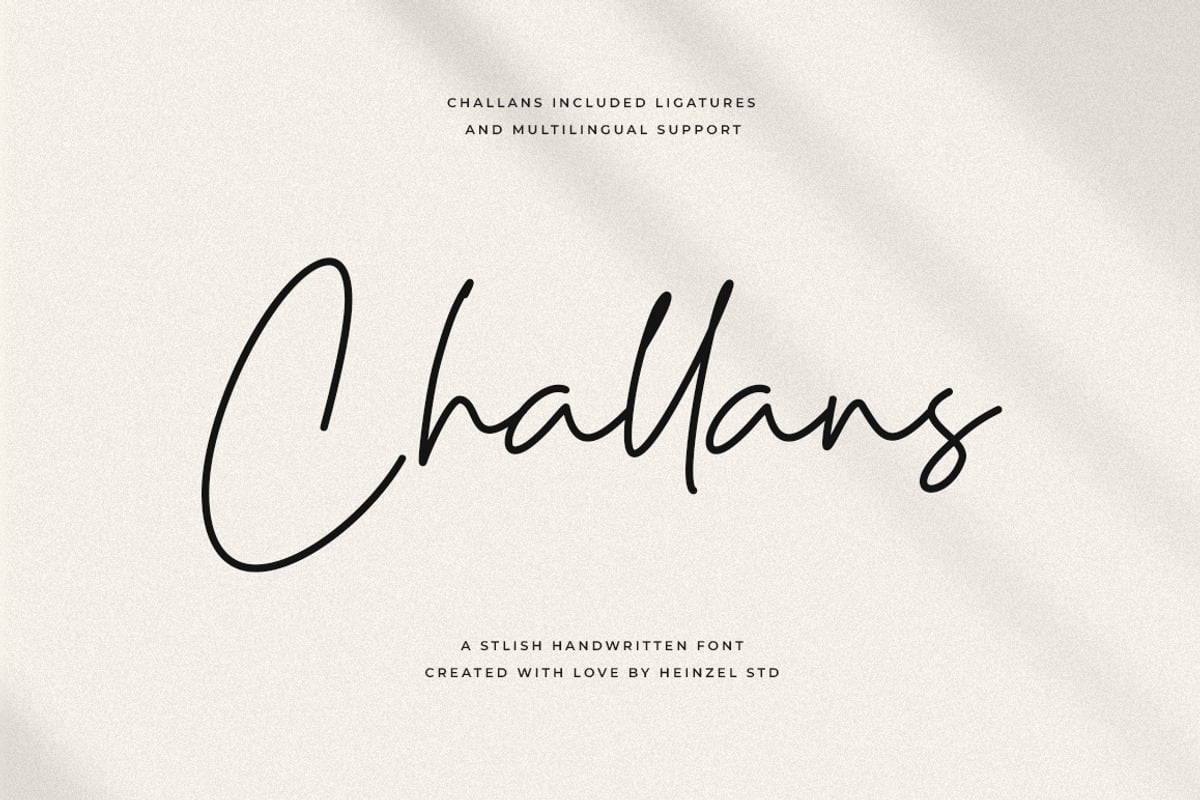
Challans | Stylish Handwritten Font
Challans is the elegant, timeless handwritten font your most beautiful projects have been waiting for.
With its incredibly distinct signature style and flowing letterforms, Challans brings a refined handcrafted touch to any design. Whether you're crafting wedding invitations, thank you cards, greeting cards, or luxury branding, this typeface delivers stunning results every time.
Challans is perfectly suited for:
- Wedding invitations and stationery
- Logos and branding
- Business cards
- Quotes and greeting cards
- Social media posts
- Magazines and marketing materials
- Any design that calls for an authentic handwritten feel
Challans Features:
- Uppercase and lowercase characters
- Numerals and punctuation
- Ligatures
- PUA encoded
- Multilingual language support (21 languages)
Supported languages include: Afrikaans, Basque, Breton, Catalan, Danish, Dutch, English, Finnish, French, Gaelic (Irish, Scots), German, Icelandic, Indonesian, Irish, Italian, Norwegian, Portuguese, Saami (Southern), Spanish, Swahili, and Swedish.